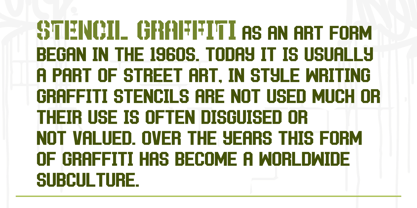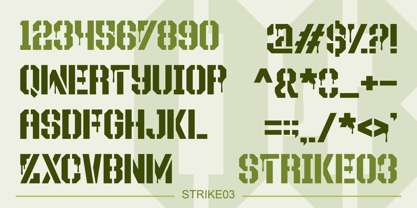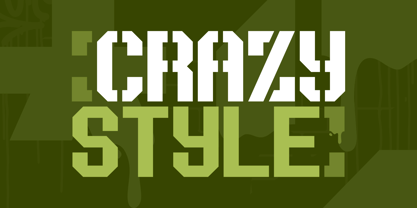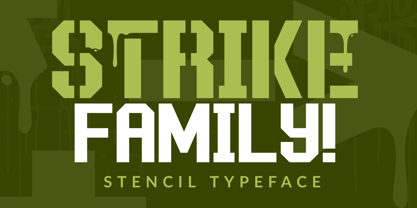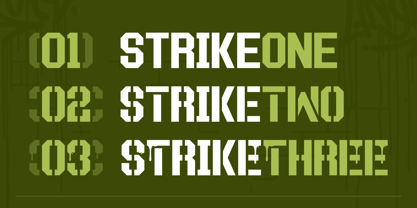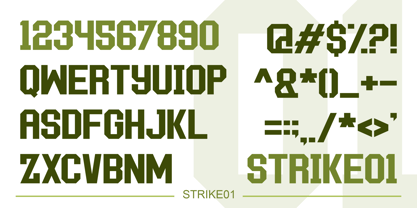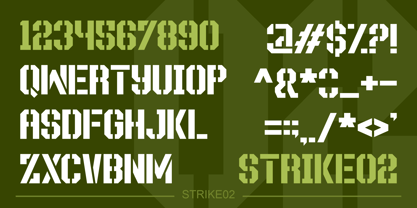
Strike
La familia tipográfica Strike fue diseñada por Anton Kustsinski y publicada por Iron Set Studio. Strike contiene 3 estilos y opciones de paquete familiar. Más información sobre esta familia
Graffiti-inspired stencil typeface rooted in street art and military style, featuring bold, fragmented letterforms and expressive cutouts that create a strong sense of movement and impact. The font channels an urban, underground attitude while maintaining a tactical, industrial feel associated with military markings and warning signage. Designed with the gaming sphere in mind, it fits seamlessly into cyberpunk environments, dystopian worlds, and futuristic interfaces. Its rough, rebellious character and high-contrast shapes make it ideal for logos, posters, game UI, and branding where a raw street-art energy meets a high-tech, battle-ready aesthetic.